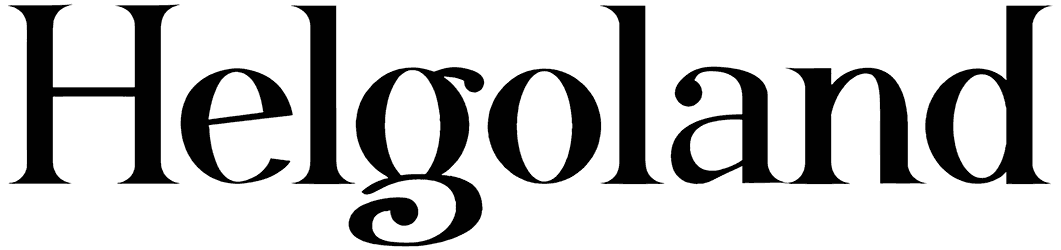
Helgoland Font
You will never have to worry about feedback when you use a classic and confident letterform like the Helgoland font. This serif font has an almost complete coverage of characters, and you can count on it for any project. Just let your imagination run wild and adorn the words of your designs with this basic font to enjoy the final show.
Helgoland is a modern serif font, suitable for many different applications including posters, web design, storefronts and much more.
The font was designed with the following languages in mind:
Basque, Croatian, Danish, Dutch, Esperanto, Estonian, Finnish, French, Frisian, German, Hawaiian, Hungarian, Latvian, Lithuanian, Māori, Norwegian, Polish, Slovenian, Spanish, Swedish, Turkish.
This way it should contain most glyphs commonly used by almost every Latin language.